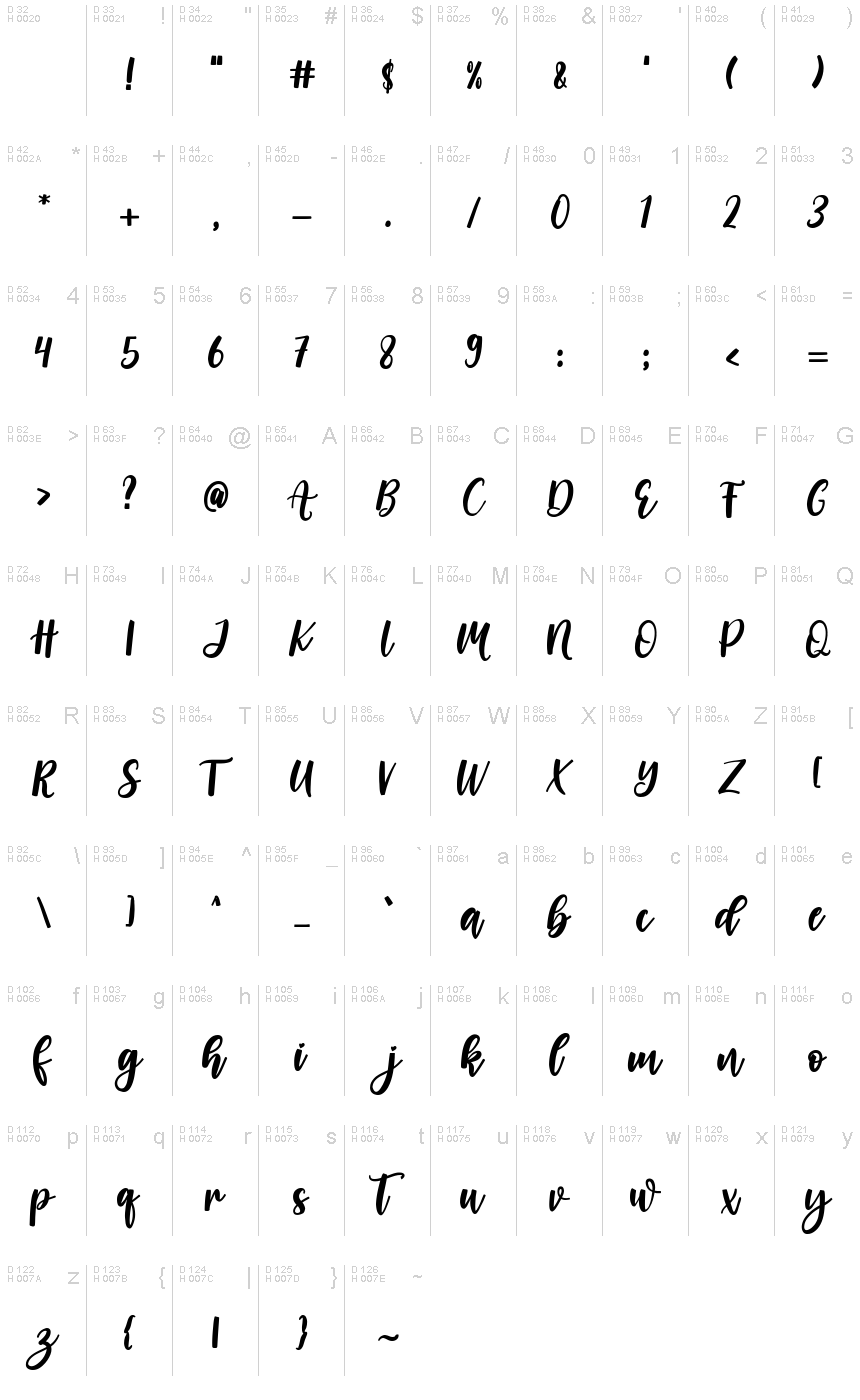
Momies
Momies, designed by Goodrichees, is a bold brush font that exudes energy and charisma. Its thick strokes and fluid motion capture the essence of hand-drawn elegance, infusing a sense of creativity and spontaneity into any project. The natural flow and rich, textured lines make Momies an excellent choice for crafting eye-catching headlines, logos, and posters that demand attention.
Whether you're designing for vibrant artistic endeavors or dynamic modern brands, Momies brings an expressive touch that stands out. Perfect for anything from music album covers to event invitations, this bold brush font encapsulates both movement and style in every letterform. Let the confident strokes of Momies elevate your designs with its distinctive flair.